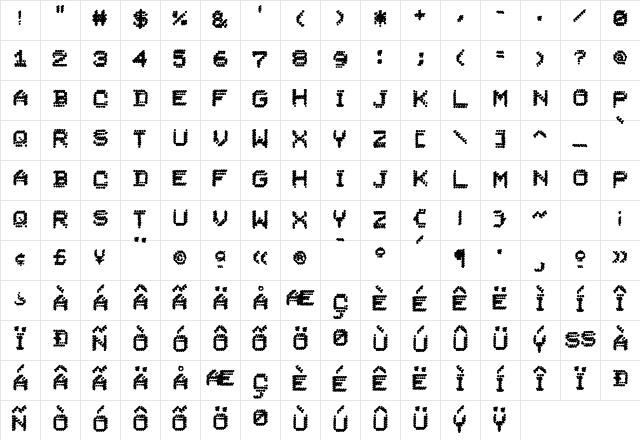
Complete DoomPlatoon Medium glyph index. Displaying only characters natively supported by DoomPlatoon Medium font.
DoomPlatoon is a composed and adaptable typeface that performs quietly and consistently across a wide range of design contexts.